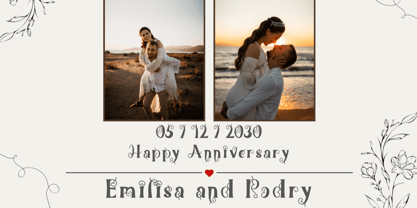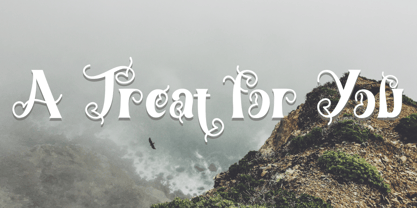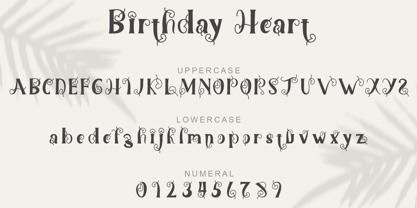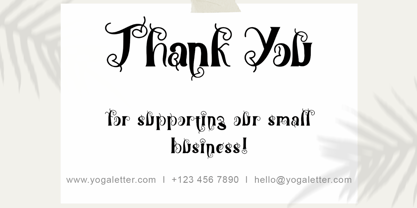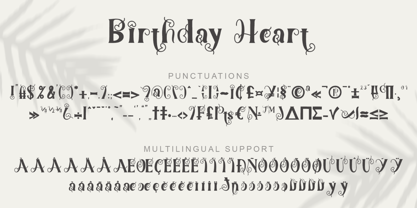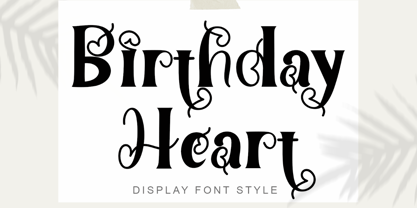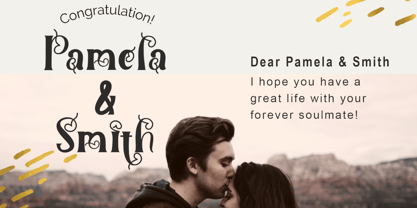
Birthday Heart
by Yoga Letter
The Birthday Heart Font Family was designed by Isroni Yoga Prasetya and published by Yoga Letter. Birthday Heart contains 1 styles. More about this family
"Birthday Heart" is a unique and elegant display font. This font is equipped with uppercase, lowercase, numeral, punctuations and multilingual support. It is very suitable for wedding, photography, easter, poster, print, banner, branding, sticker, valentine, summer, spring, logo and others.
Designers: Isroni Yoga Prasetya
Foundry: Yoga Letter